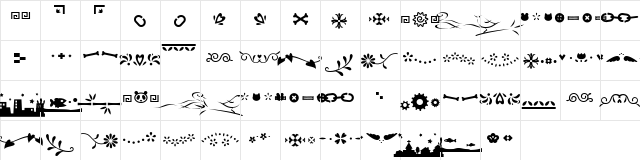
Kfon Regular
Design Context for Kfon Typeface
Kfon is a composed and adaptable typeface that performs quietly and consistently across a wide range of design contexts.